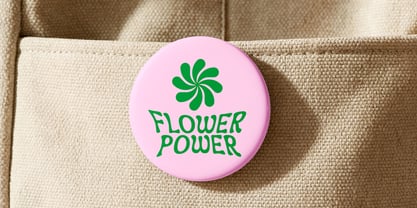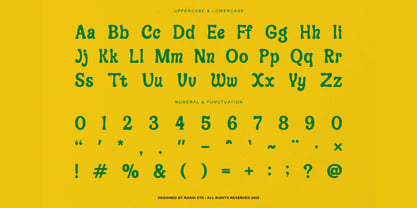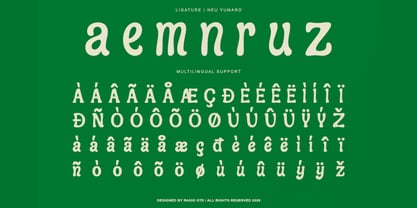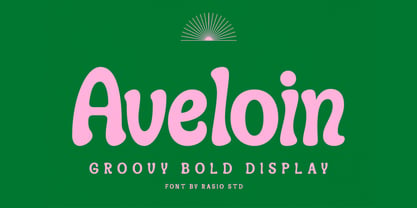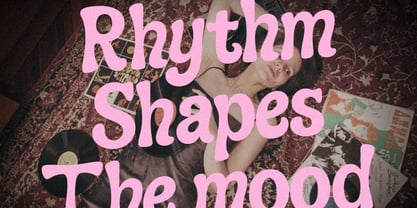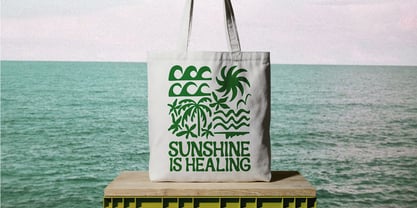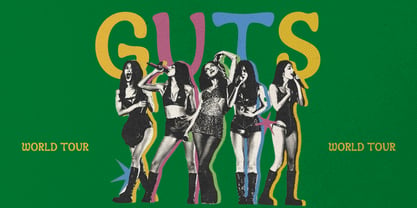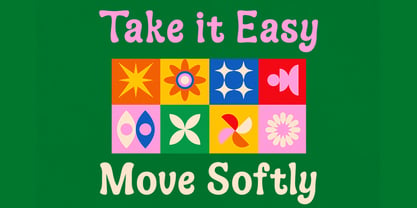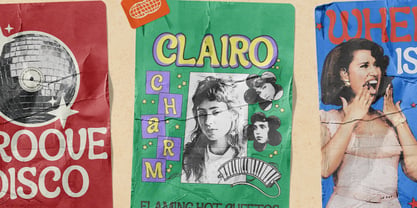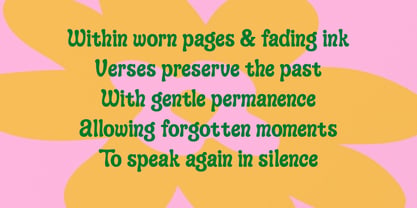
Aveloin
Die Schriftfamilie Aveloin wurde von Fajar Indra entworfen und von Rasio Studio veröffentlicht. Aveloin enthält 1 Stile. Mehr über diese Familie
Aveloin is a groovy bold display font created by Rasio STD in 2026. Featuring soft curves, playful character shapes, and a retro soul, this typeface draws inspiration from 70s psychedelia with a modern twist. It includes uppercase and lowercase characters, punctuation, numerals, and multilingual support. Aveloin brings retro charm and bold expression to your creative projects. It’s highly relevant for designers working on vibrant branding, festival posters, apparel prints, book covers, retro-themed packaging, and digital content that needs a funky, friendly touch.